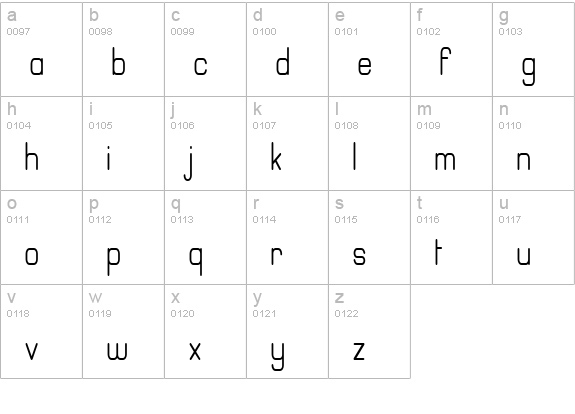
Erinal Narrow Font Details
Erinal Narrow is a distinctive, condensed-width variant in the Erinal typeface family \xE2\x80\x94 well suited to design and typography projects.
Erinal Narrow font is a sleek and elegant typeface that exudes sophistication and modernity. Its narrow, condensed design gives it a contemporary and chic appearance, making it perfect for a wide range of projects, from branding to editorial design. The clean lines and sharp angles of Erinal Narrow font make it highly versatile and suitable for both digital and print applications. Designed with attention to detail, Erinal Narrow font offers a harmonious balance between style and readability. Its crisp letterforms and balanced spacing ensure optimal legibility, even at smaller sizes. Whether used for headlines, body text, or captions, this font adds a touch of refinement to any design. What's even better is that Erinal Narrow font is available for free download at FontsMarket.com. This means you can easily access this high-quality typeface to elevate your design projects without any cost. Don't miss out on the opportunity to enhance your creations with the sleek and sophisticated Erinal Narrow font today!